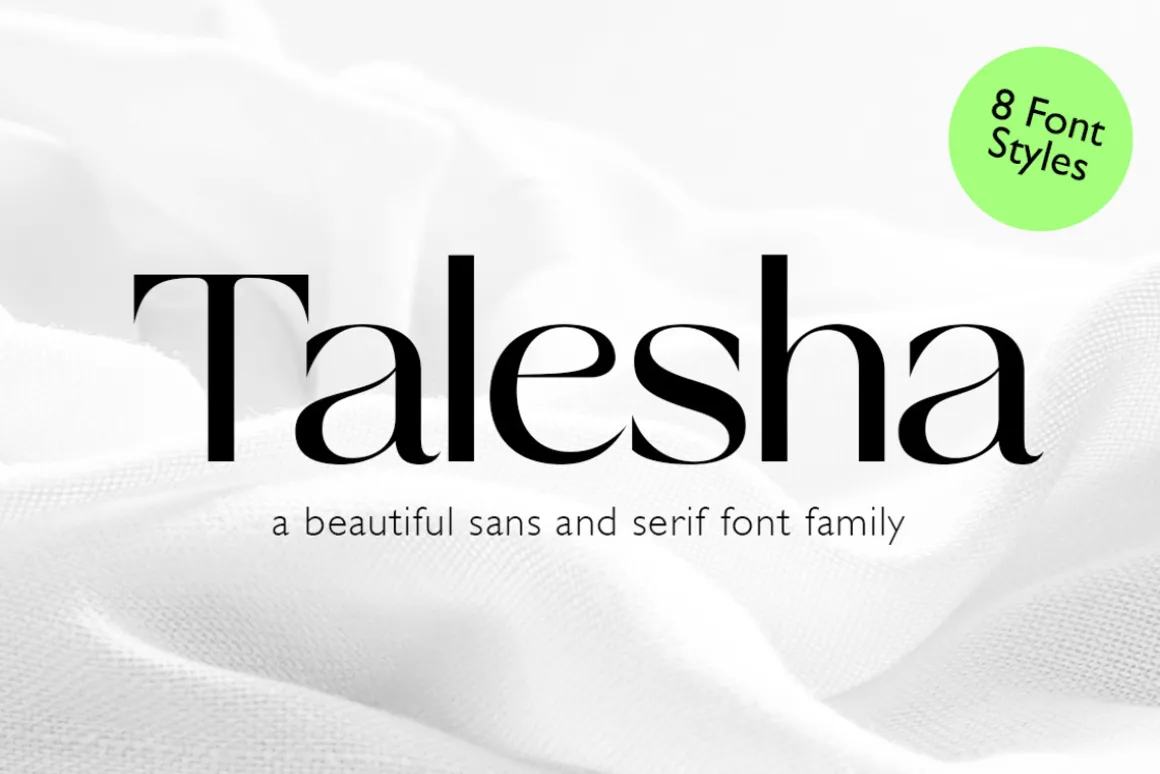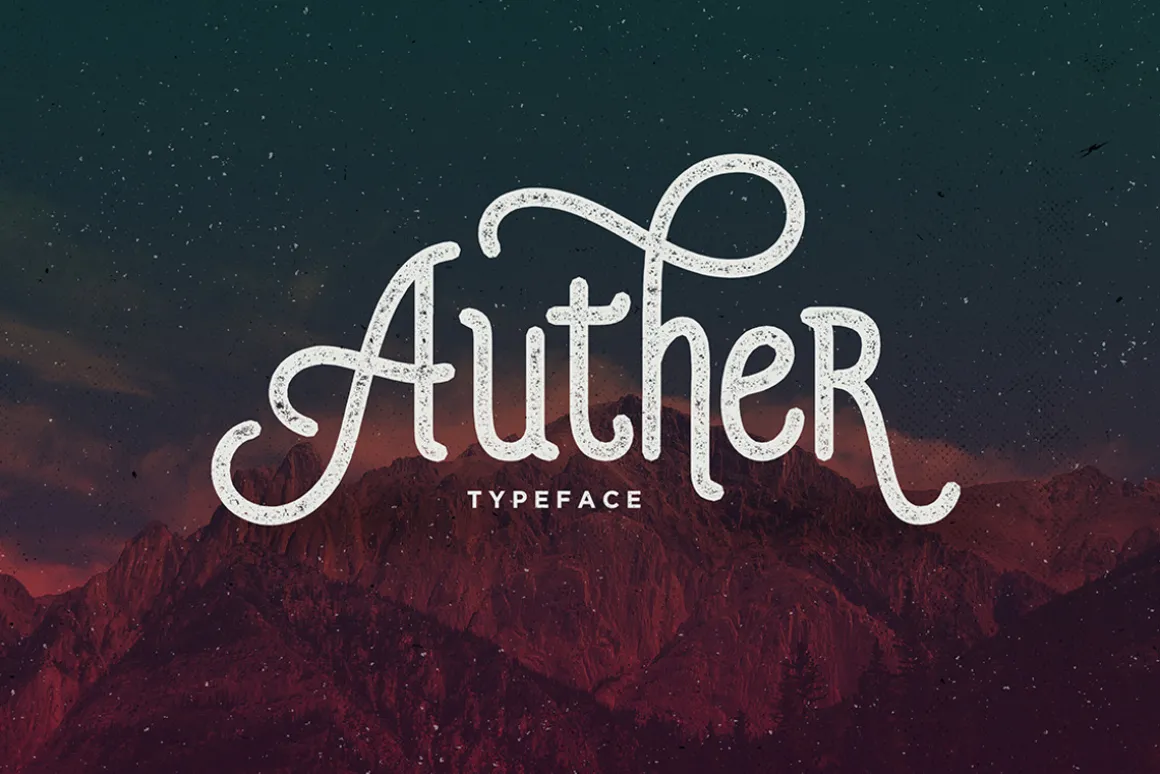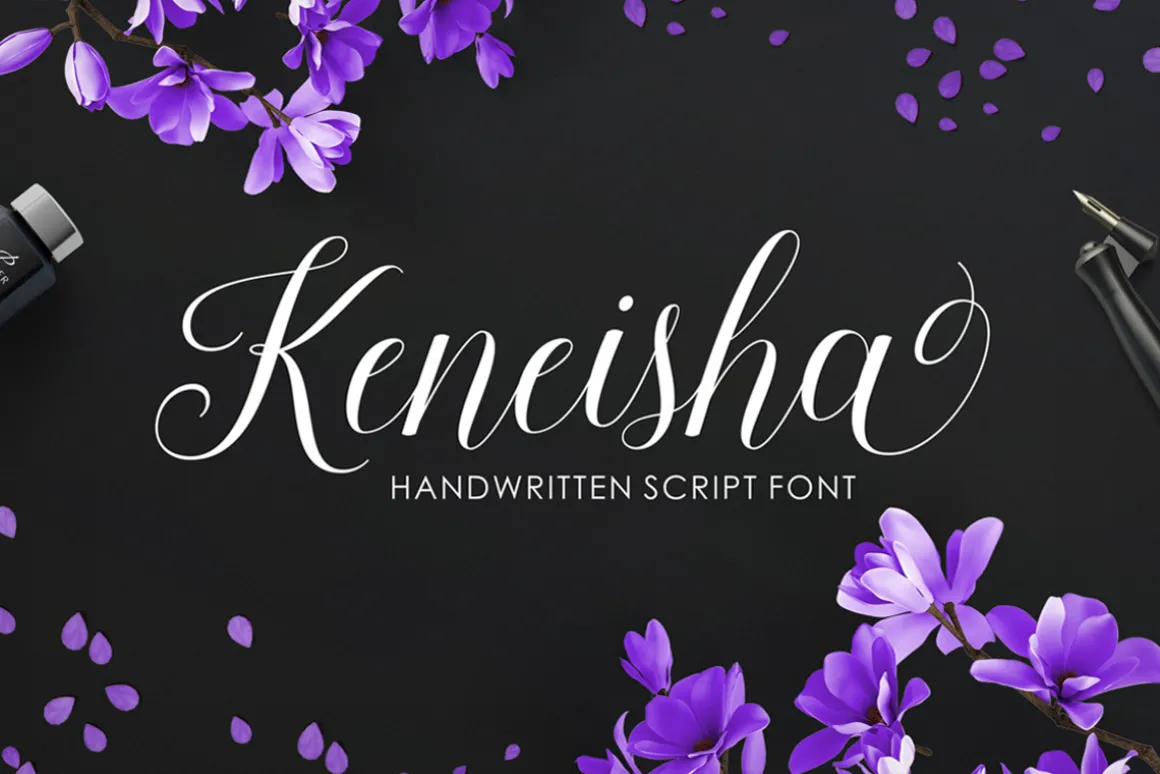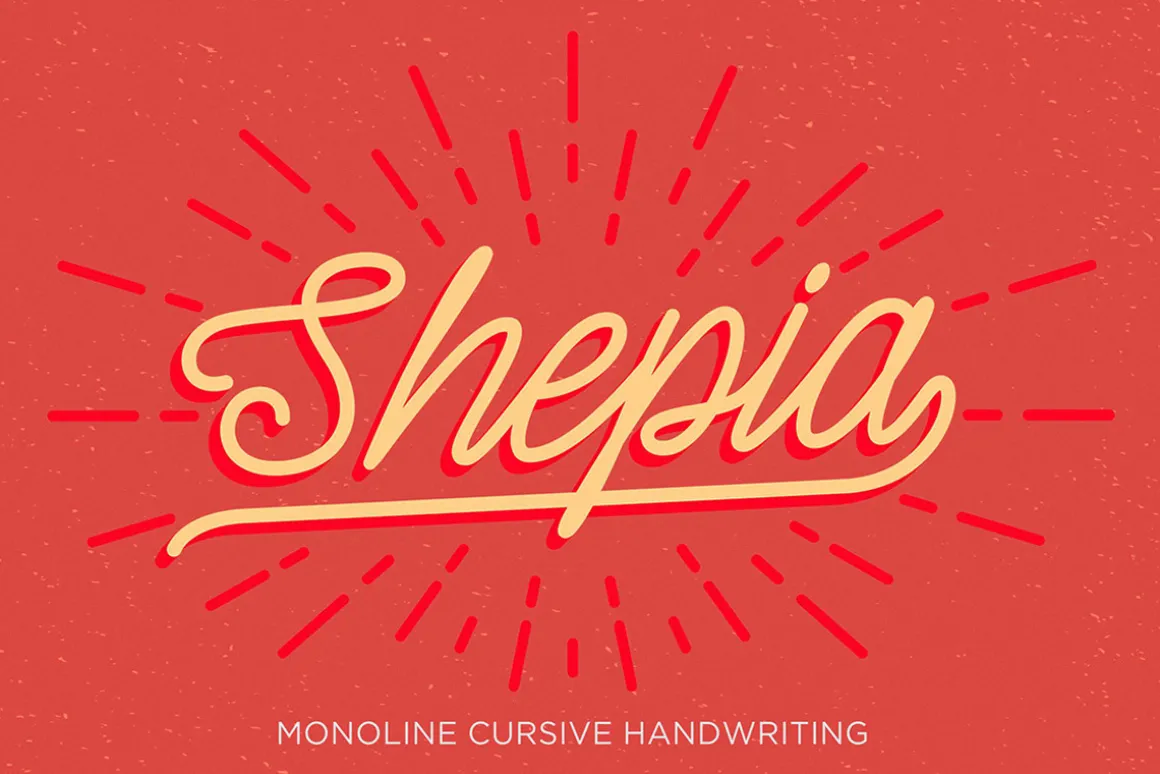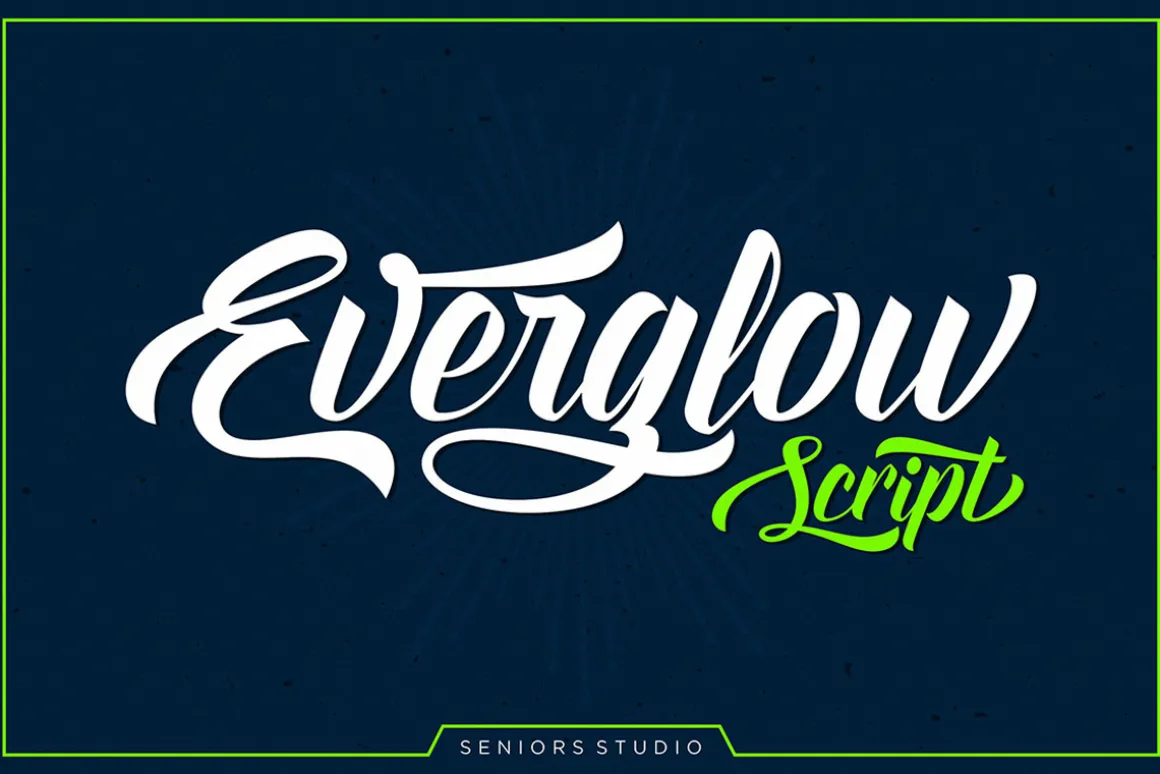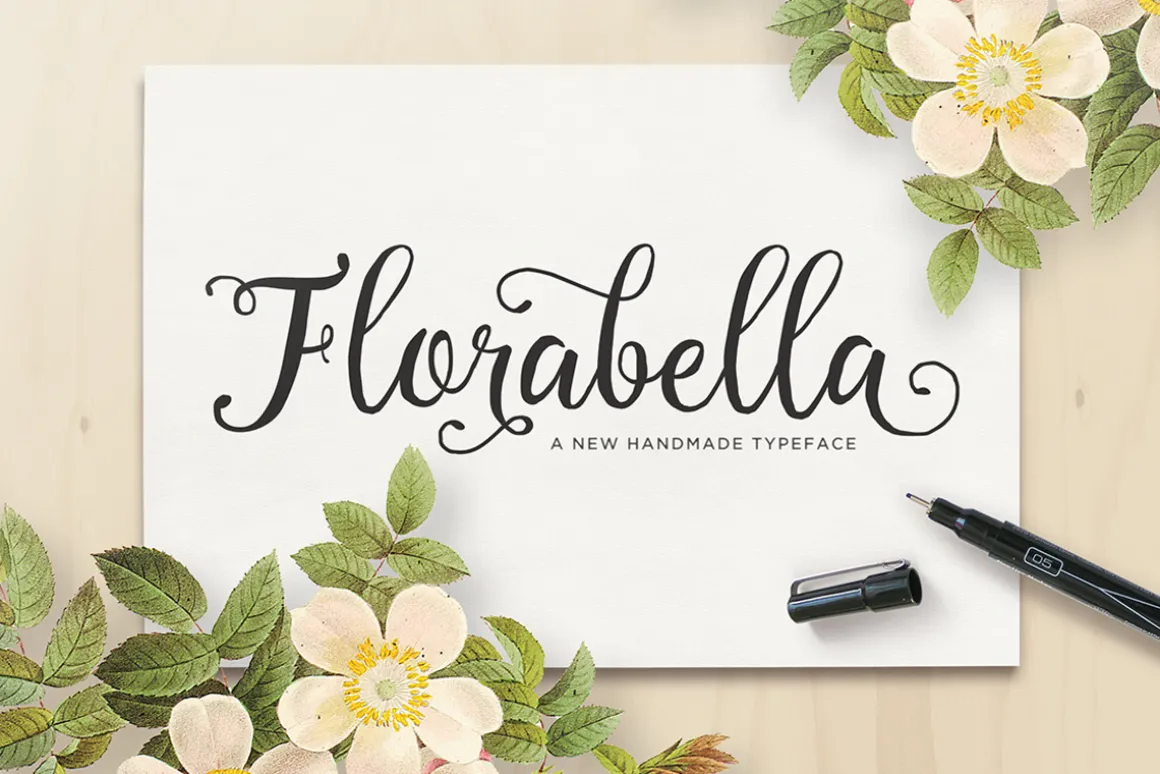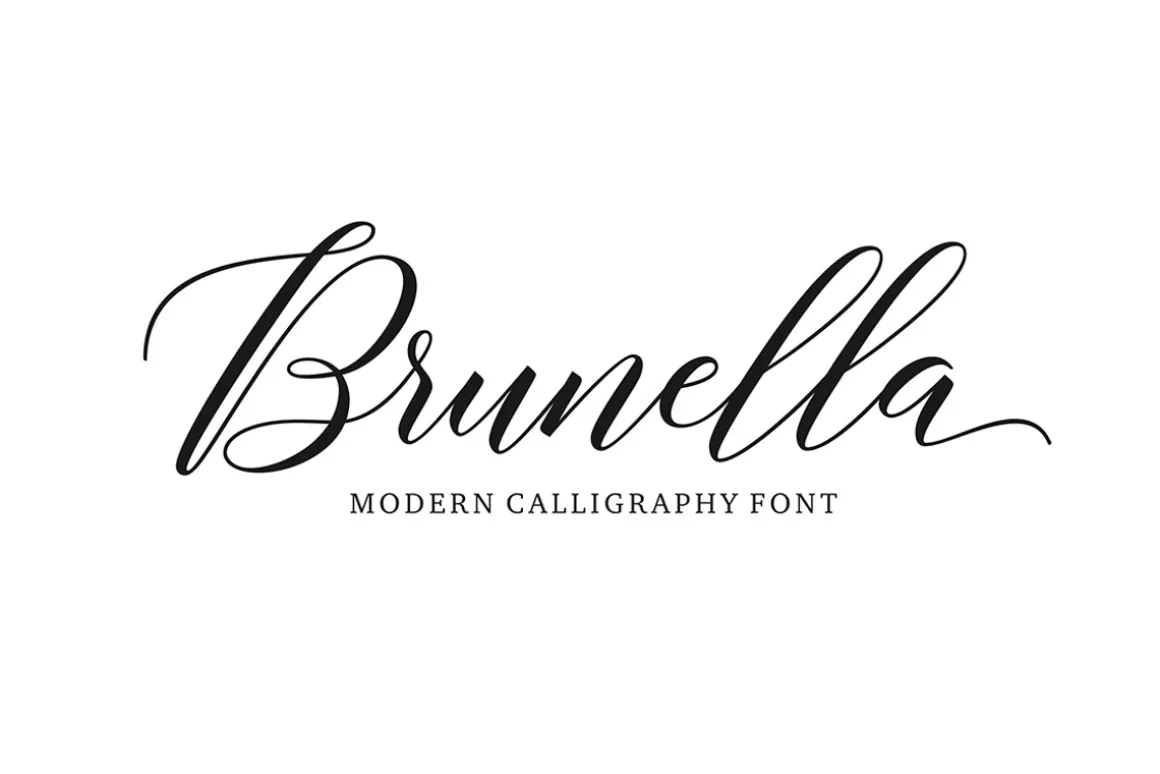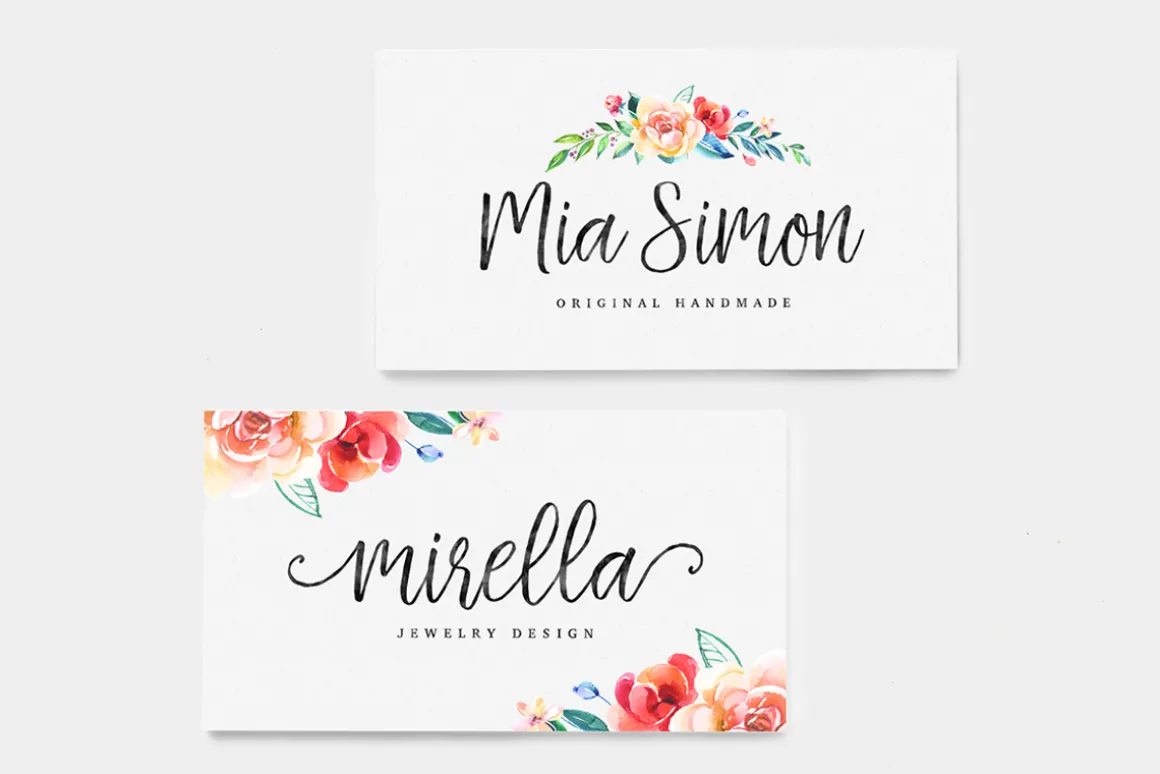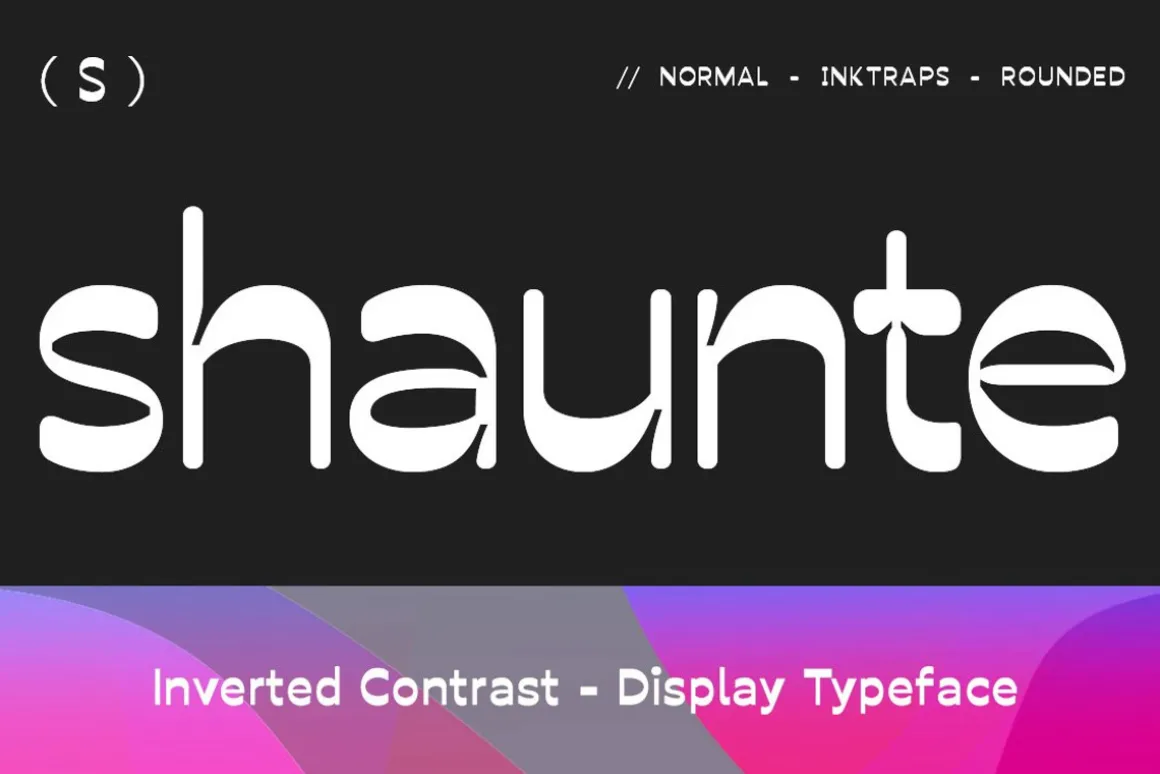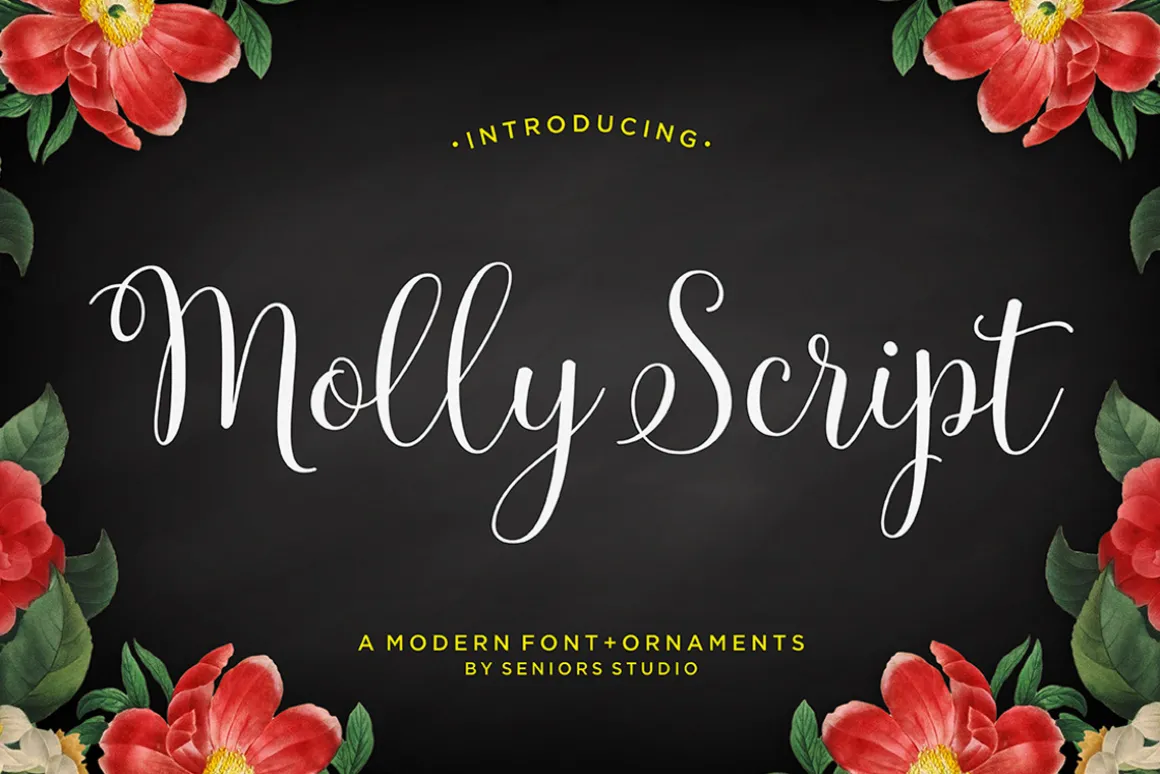
The Font Collection by Seniors Studio
This package includes 26 Script Font and 7 Display Font. For only $29. This collection includes a varied range of font styles. Including some of the best selling fonts. Isabella Script, Adelicia Script, Kathya Script, Roselina Script, Everglow Script, Andalusia Script. with hundreds of glyphs, including alternates, ligatures, swashes, separate swashes, contextual alternates and international language support. which can be accessed using OpenType savvy programs like Adobe Illustrator, Adobe InDesign, CorelDraw X6-X7, Microsoft Word 2010 or later versions.
All fonts is perfect for branding, headings, signatures, logos, blog, wedding invitations, t-shirts, letterhead, merchandise, signage, lable, news, posters, badges etc.
- Isabella Script
- Adelicia Script
- Kathya Script
- Roselina Script
- Everglow Script
- Andalusia Script
- Be Bright Script
- Hello Sweets Script
- Black And White Script
- The Sweetest Thing Script
- Molly Script
- Belastoria Script
- Blingtastic Script
- Auther Display
- Sweetness Script
- Daniela Script
- Shania Script
- Brenda Script
- Delabasto Display
- Florabella Script
- Carolinea Script
- Cresilda Script
- Grounday Display
- Shepia Script
- Shintia Script
- Aaron Script
- Brunella Script (New Font 2017)
- Keneisha Script (New Font 2017)
- Elisabetta Script (New Font 2018)
- Fregan Display (New Font 2022)
- Shaunte Display (New Font 2022)
- Talesha Display (New Font 2023)